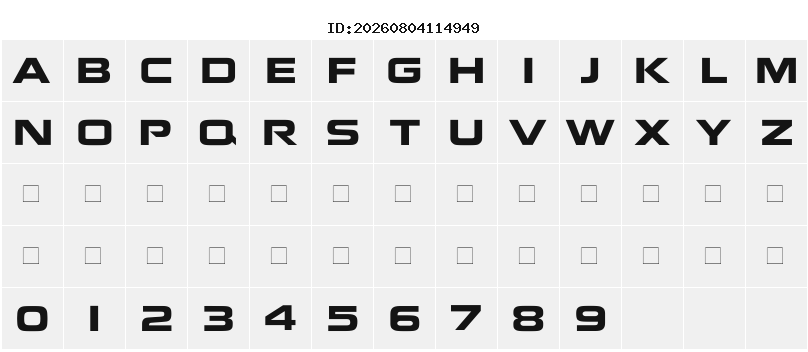
NokiaKokia Preview
About NokiaKokia.ttf
NokiaKokia.ttf is a modern, elegant sans-serif font designed for ultimate readability and visual harmony. Perfect for branding, headlines, web design, and print materials.